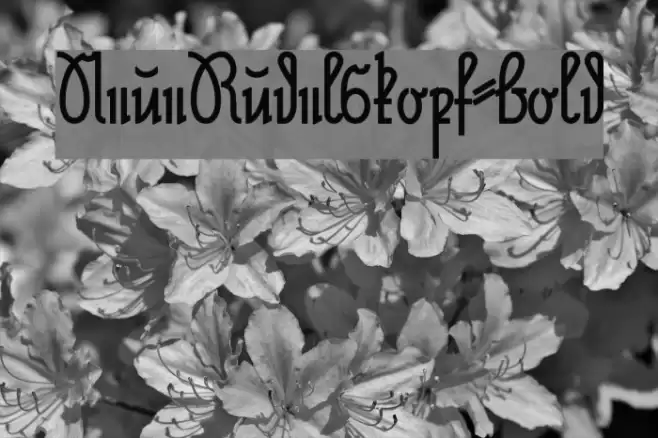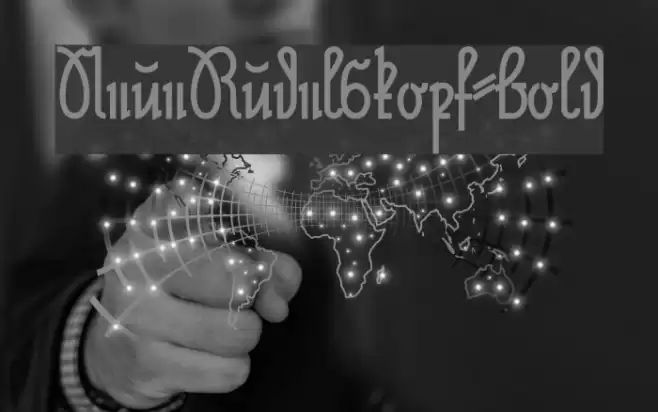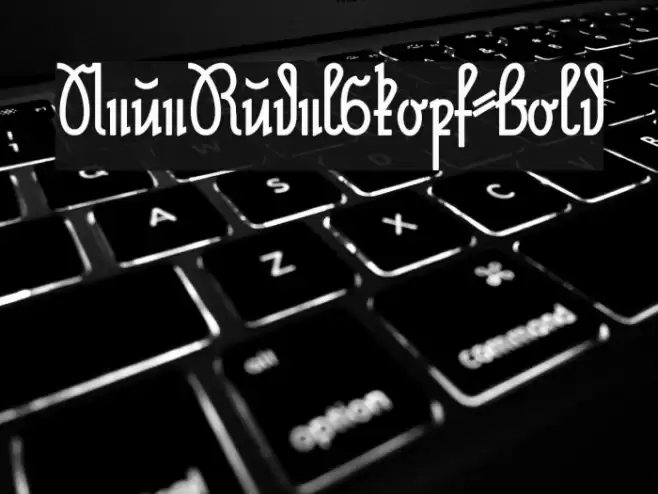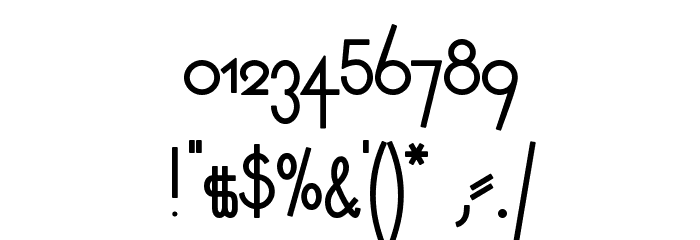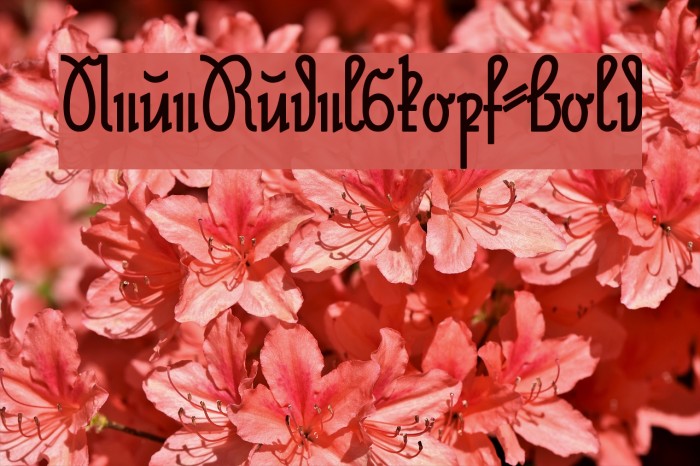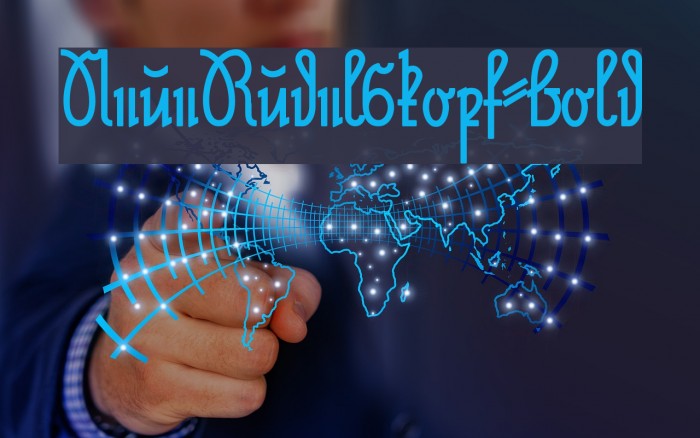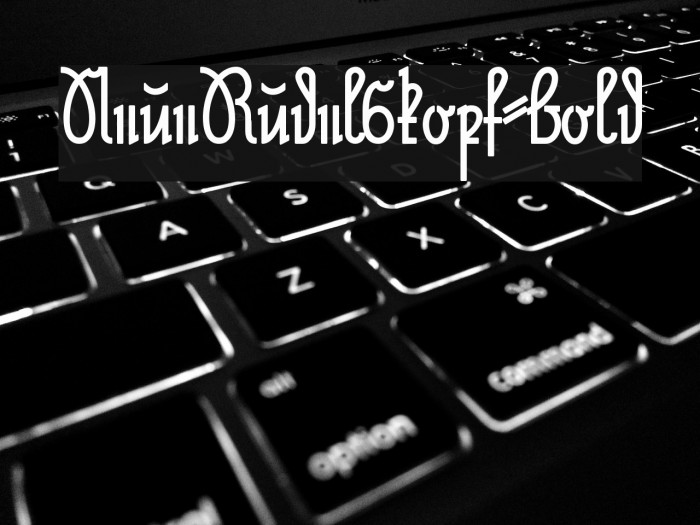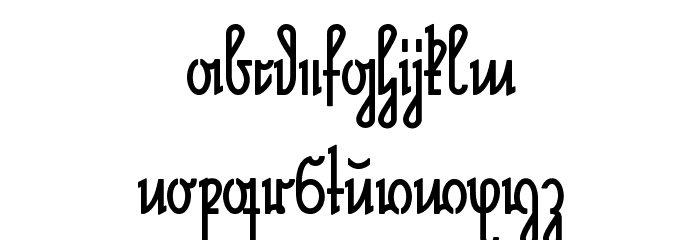
NeueRudelskopf-Bold Font
NeueRudelskopf-Bold Description
This font exhibits a unique and decorative style with intricate, flowing lines and a bold presence. The characters are highly stylized, featuring elaborate curves and loops that give it an artistic and somewhat whimsical appearance. The uppercase letters are particularly ornate, with extended ascenders and descenders that create a sense of movement and flair. The lowercase letters maintain this decorative quality, though they are slightly more restrained in their embellishments. The numerals and special characters are consistent with the overall design, offering a cohesive look across all glyphs. This font's distinctiveness makes it ideal for creative and expressive projects.
A bold, decorative font with intricate, flowing lines and artistic flair from Uncategorized fonts.
- Proposed Projects: Ideal for creative projects such as posters, invitations, branding, and artistic designs where a unique and expressive typeface is desired.
- Use Case: Headlines, Logos, Artistic designs